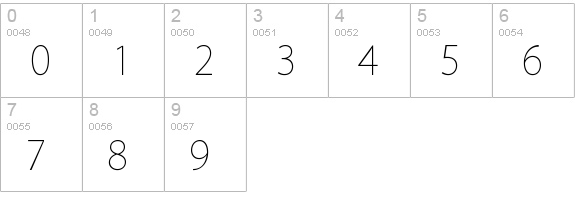
Ryo Gothic PlusN EL is a modern and sleek typeface that exudes elegance and sophistication. With its clean lines and sharp edges, this font is perfect for creating professional and eye-catching designs. The versatility of Ryo Gothic PlusN EL makes it suitable for a wide range of projects, from branding and advertising to web design and editorial layouts. The best part about Ryo Gothic PlusN EL is that it is completely free to download. You can easily access this font at FontsMarket.com, where you can enhance your creative projects without any cost. Whether you're a seasoned designer or just starting out, Ryo Gothic PlusN EL is a valuable addition to your font collection. Don't miss out on this fantastic opportunity to elevate your designs with this exceptional typeface!